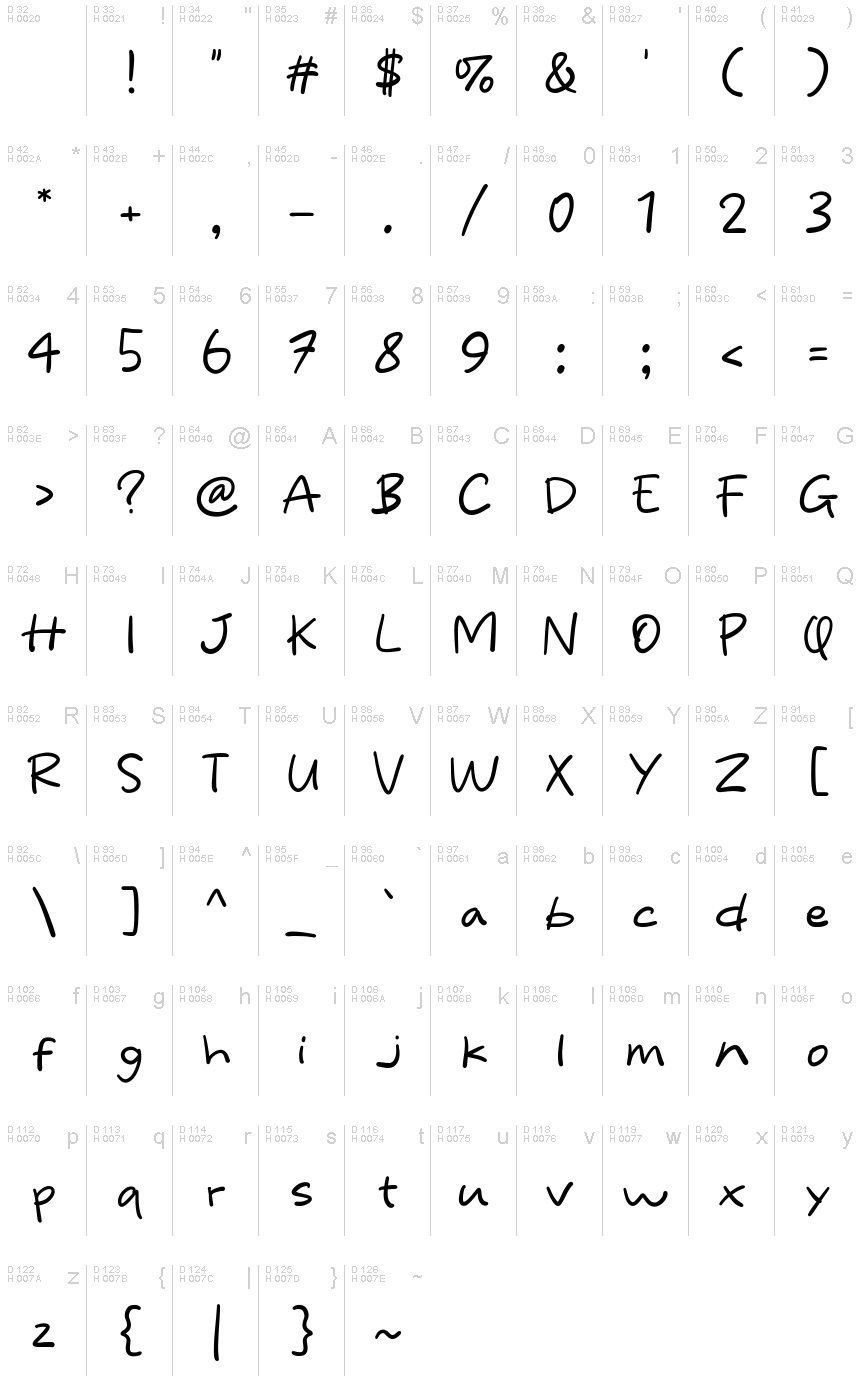
Handy Times
Handy Times, crafted by Khurasan, exudes a personal touch with its handwritten style that captivates the warmth and authenticity of human penmanship. Its strokes dance between casual elegance and artistic flair, inviting an intimate feel into any project. The playful irregularity of the characters suggests a sense of freedom and creativity, making it an ideal choice for designs that aim to convey individuality and charm.
This font finds its place in contexts that benefit from a handcrafted look such as invitations, greeting cards, and branding for boutique businesses. It can also add character to editorial content or advertising that seeks to establish a friendly and approachable tone. In essence, Handy Times brings the bespoke beauty of handwriting to digital design with an effortless grace that resonates across various applications.